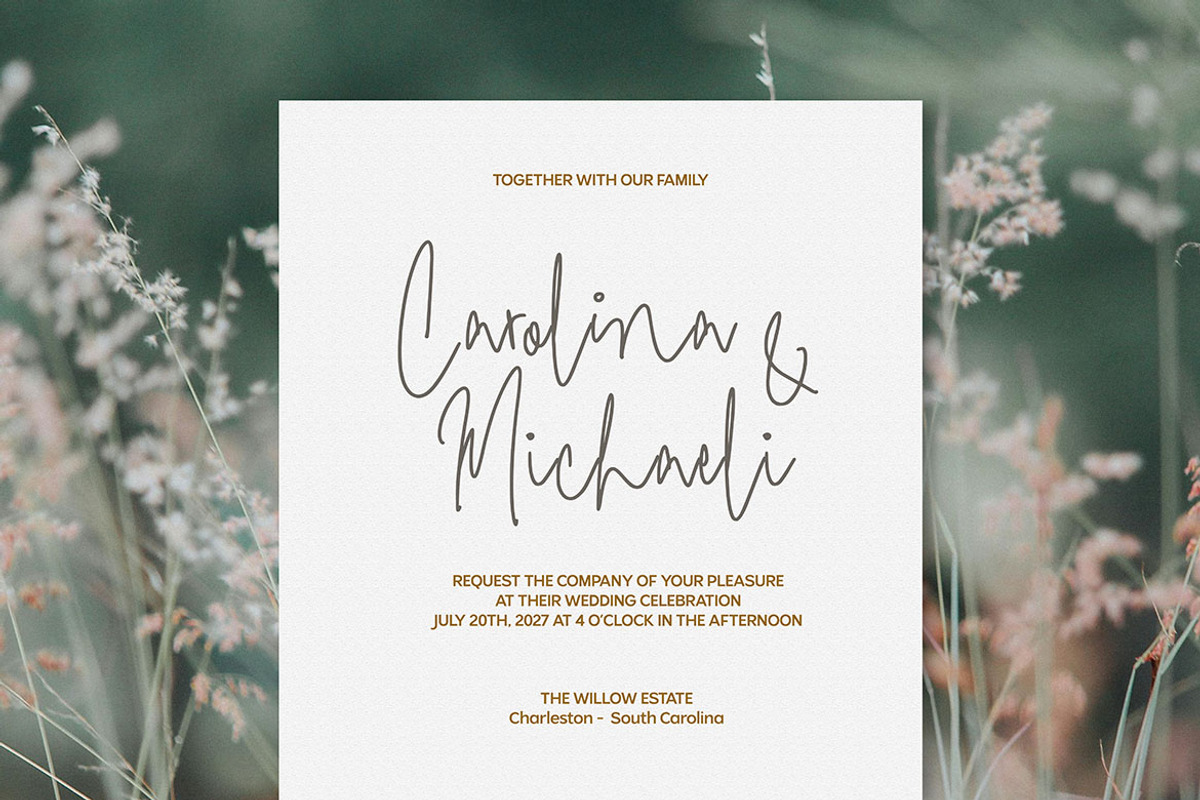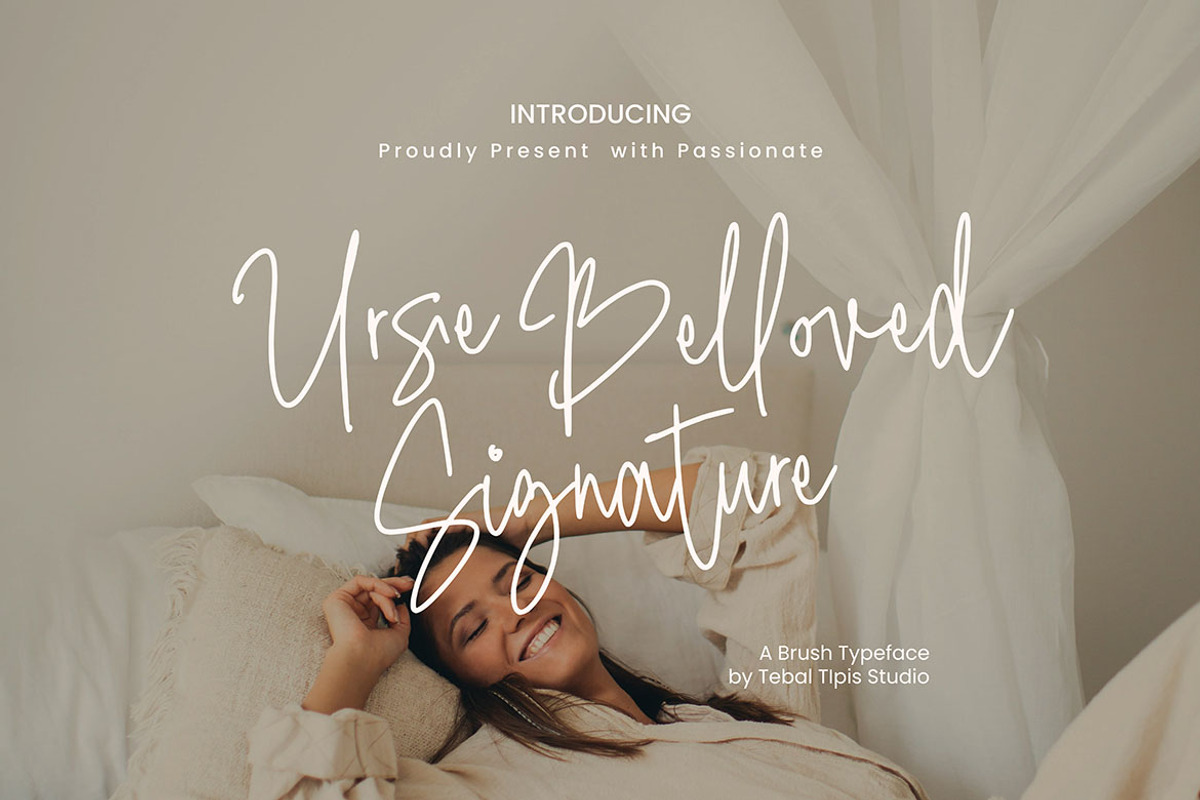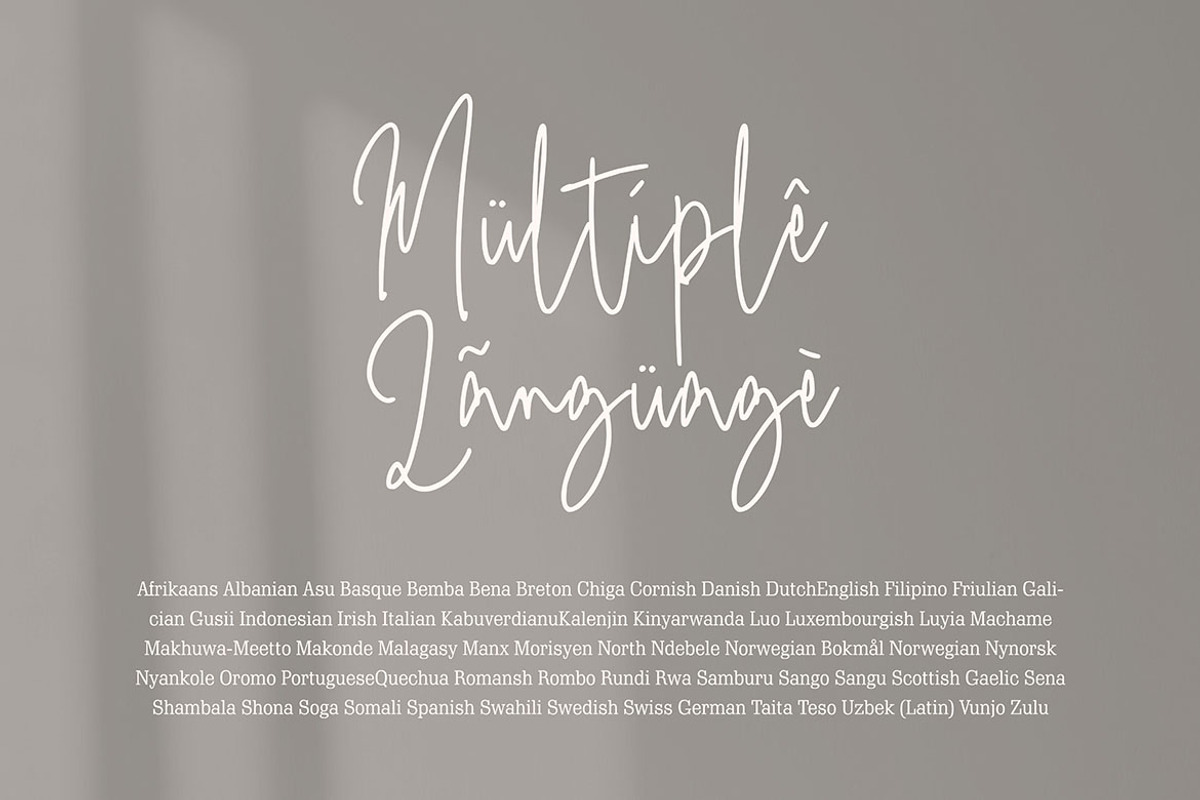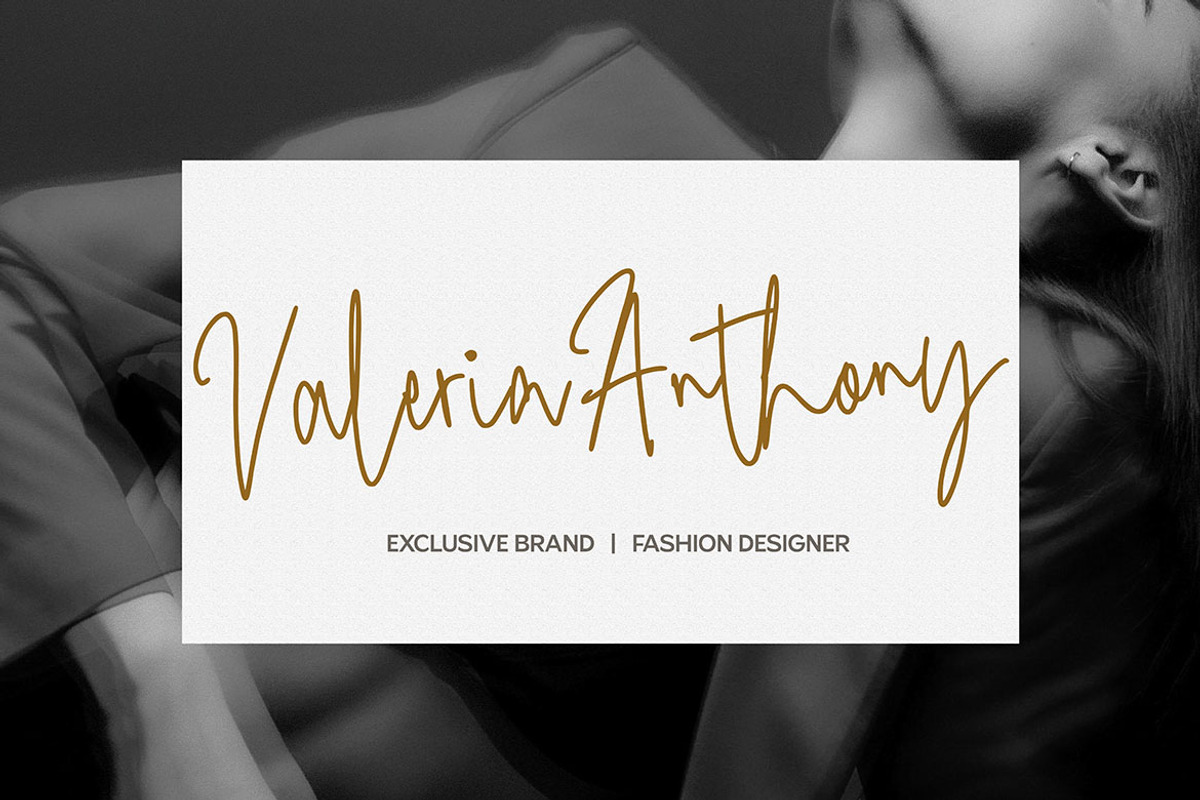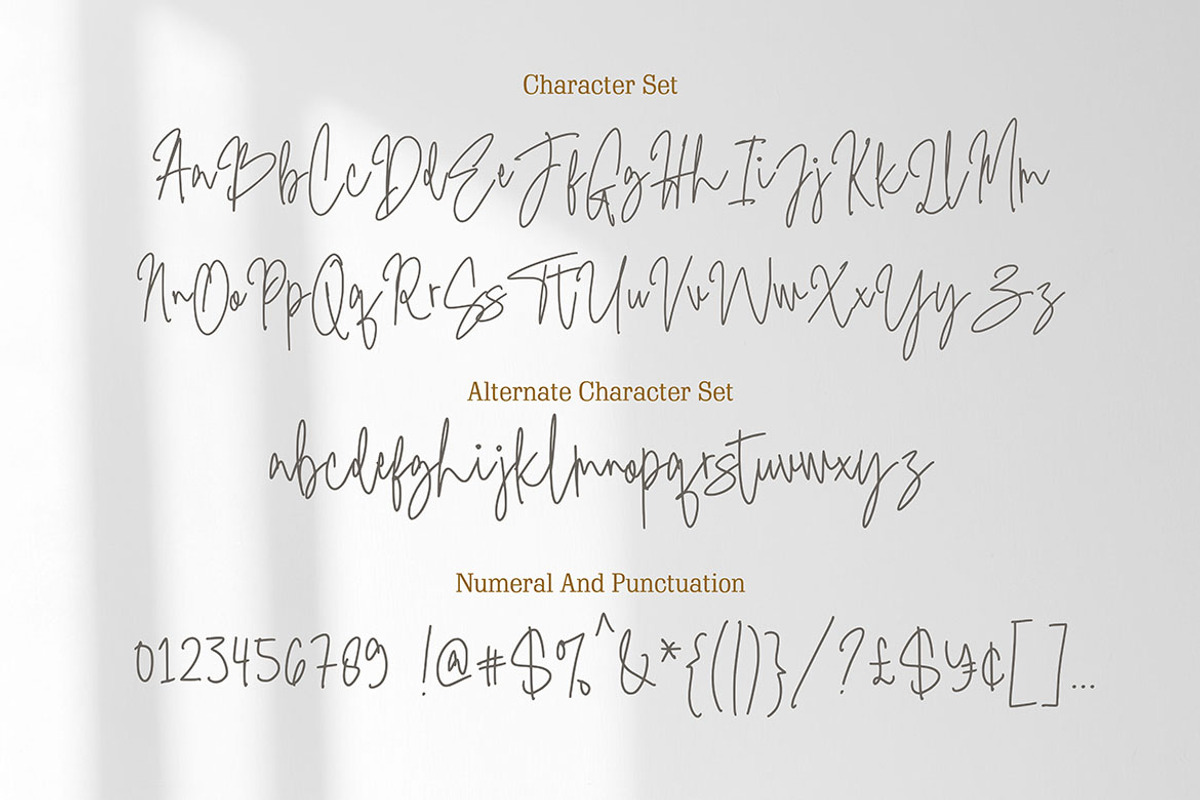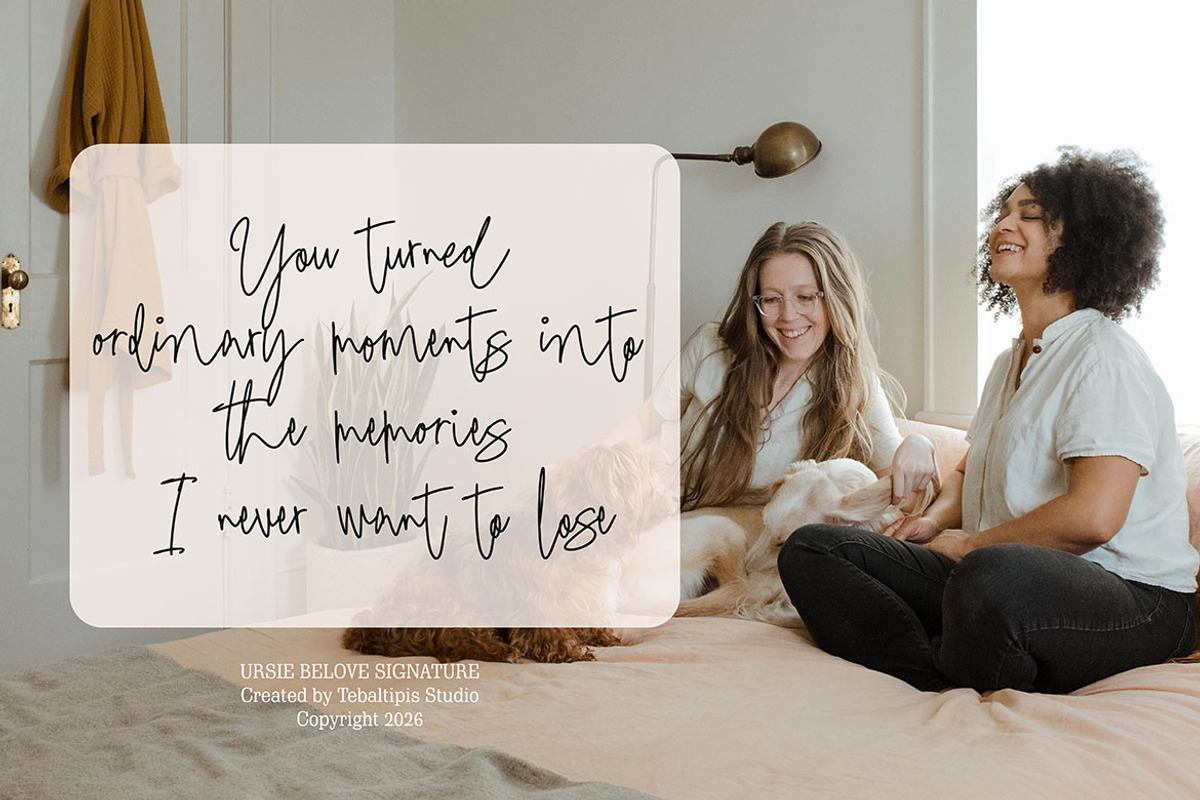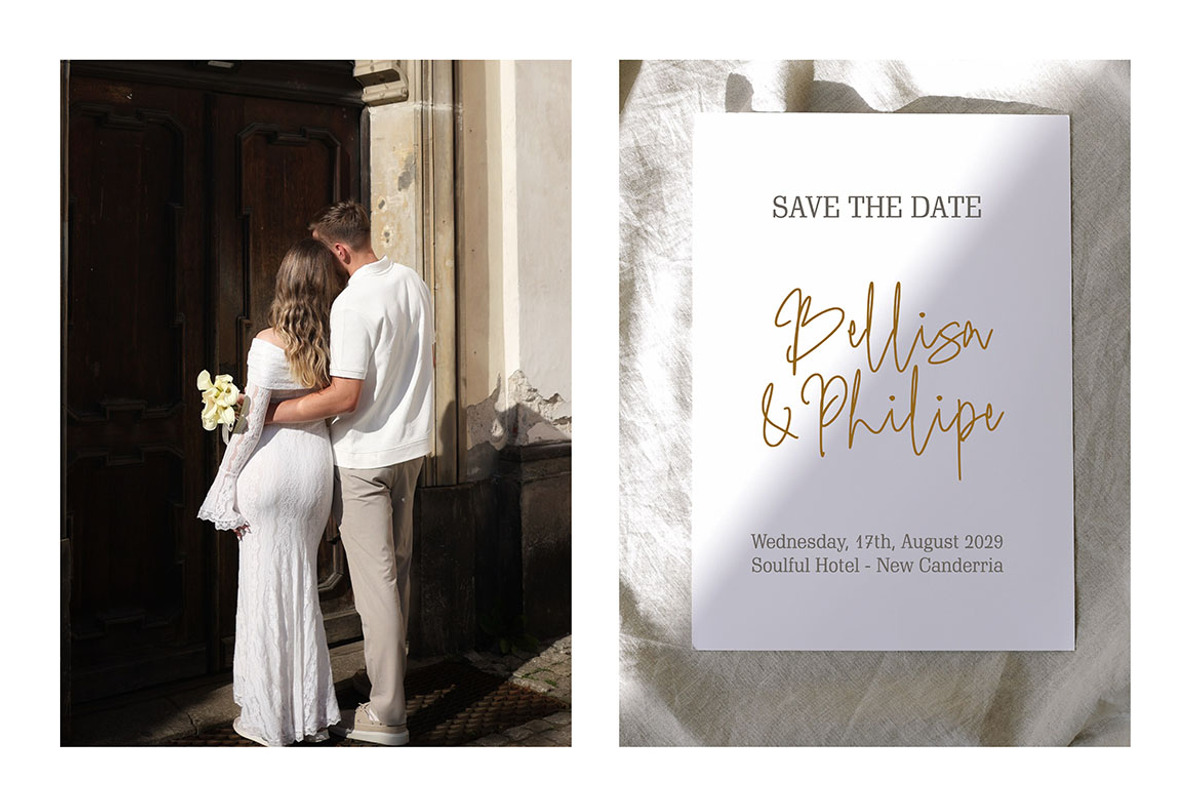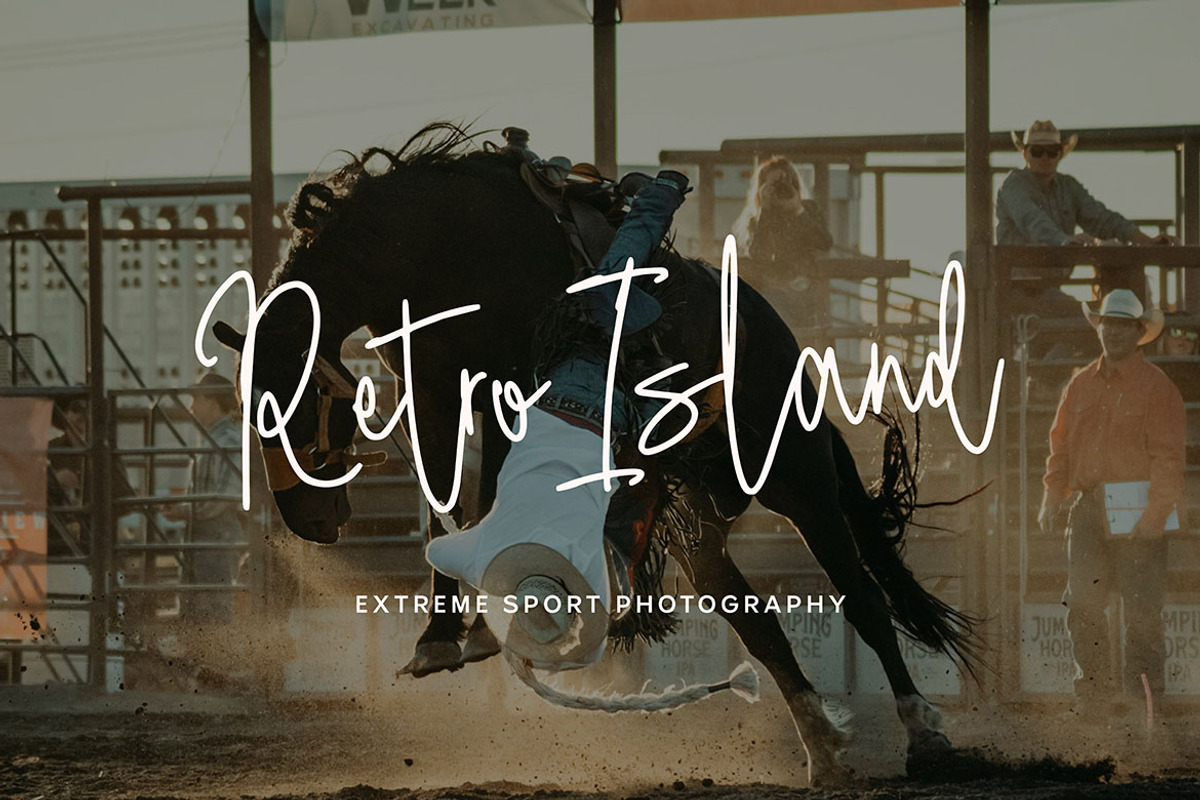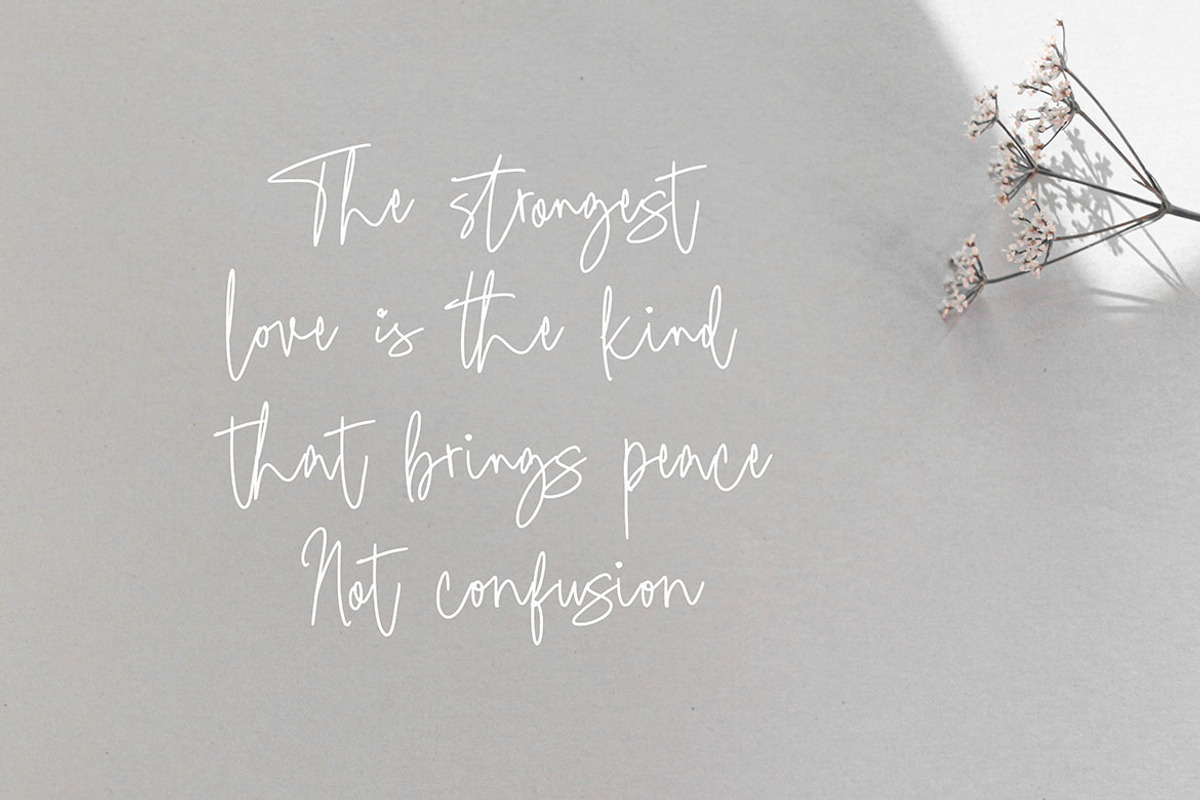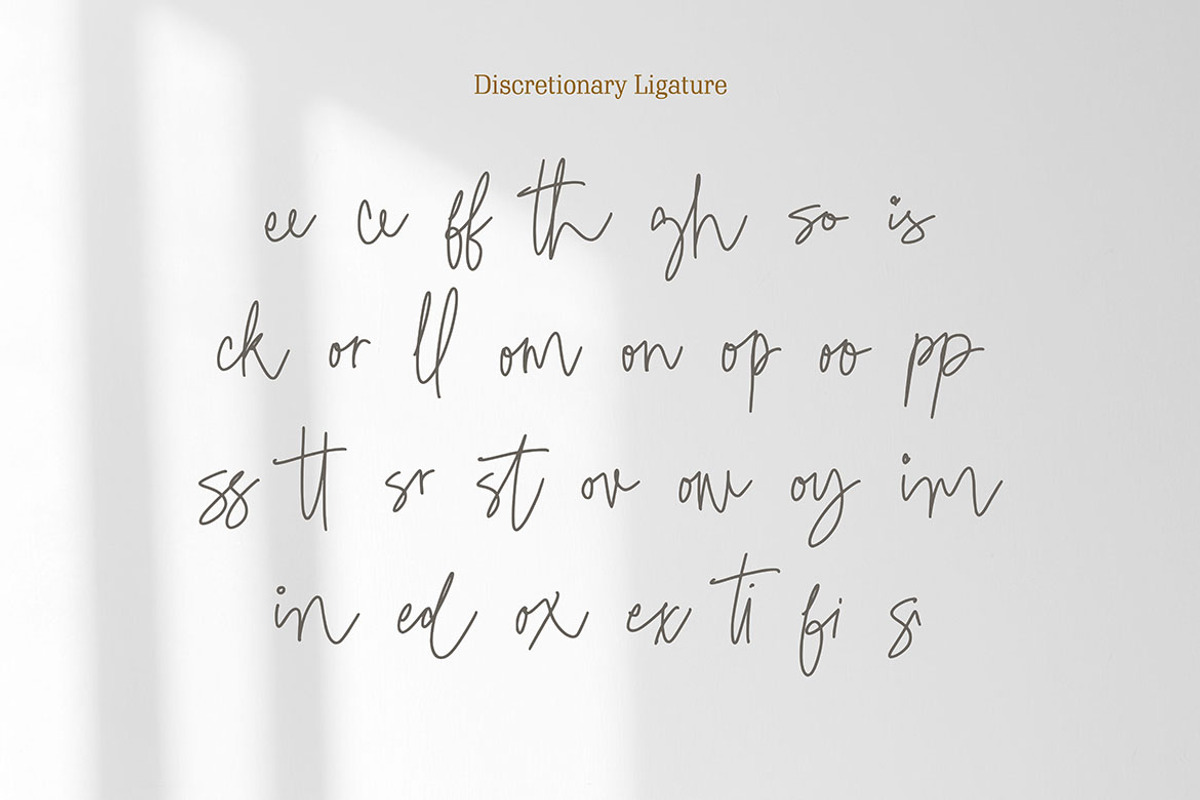
Ursie Bellove - Monoline Signature
***Ursie Bellove Signature*** with a handmade Signature style, decorative characters and a dancing baseline! So beautiful on invitation like greeting cards, branding materials, business cards, quotes, posters, and more!!
Ursie Bellove Signature come with 170+ glyphs. The alternative characters were divided into several Open Type features such as Swash, Stylistic Sets, Stylistic Alternates, and Ligature. The Open Type features can be accessed by using Open Type savvy programs such as Adobe Illustrator, Adobe InDesign, Adobe Photoshop Corel Draw X version, And Microsoft Word. And this Font has given PUA unicode (specially coded fonts). so that all the alternate characters can easily be accessed in full by a craftsman or designer.
Ursie Bellove Signature Features :
Uppercase & Lowercase International Languange & Symbols Support Punctuation & Number PUA Unicode Range Standard Ligatures Discretionary Ligatures Stylistic Alternates Stylistic Set.